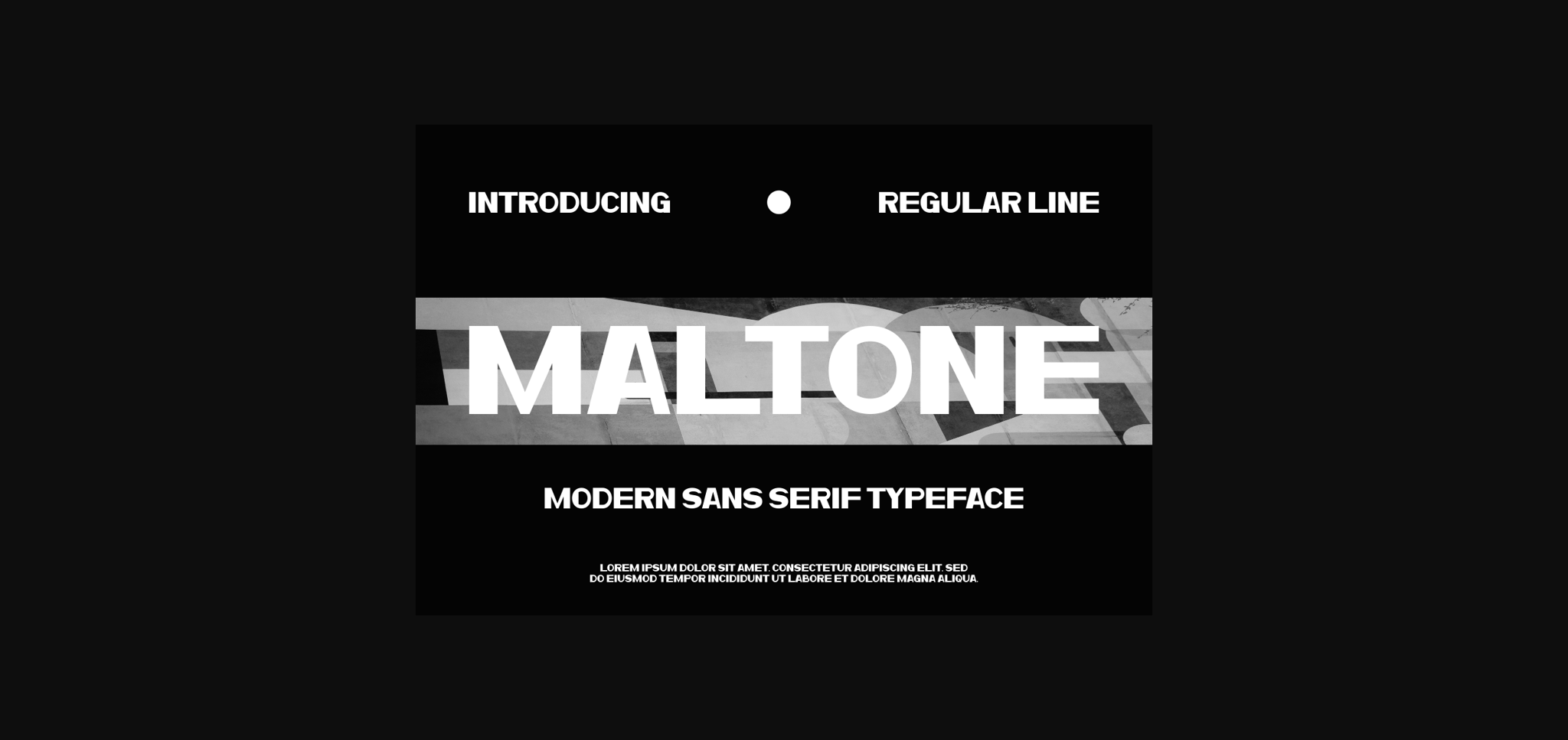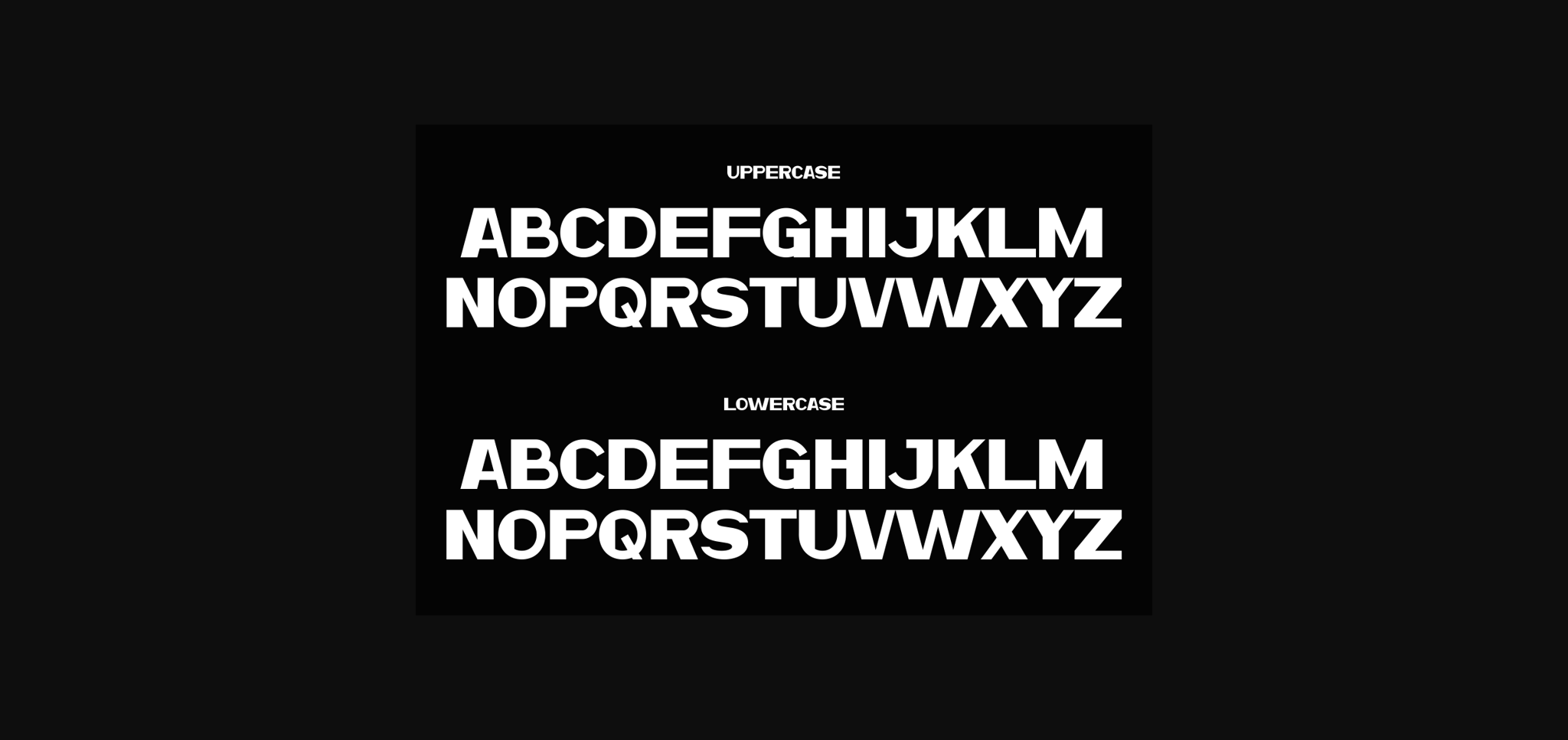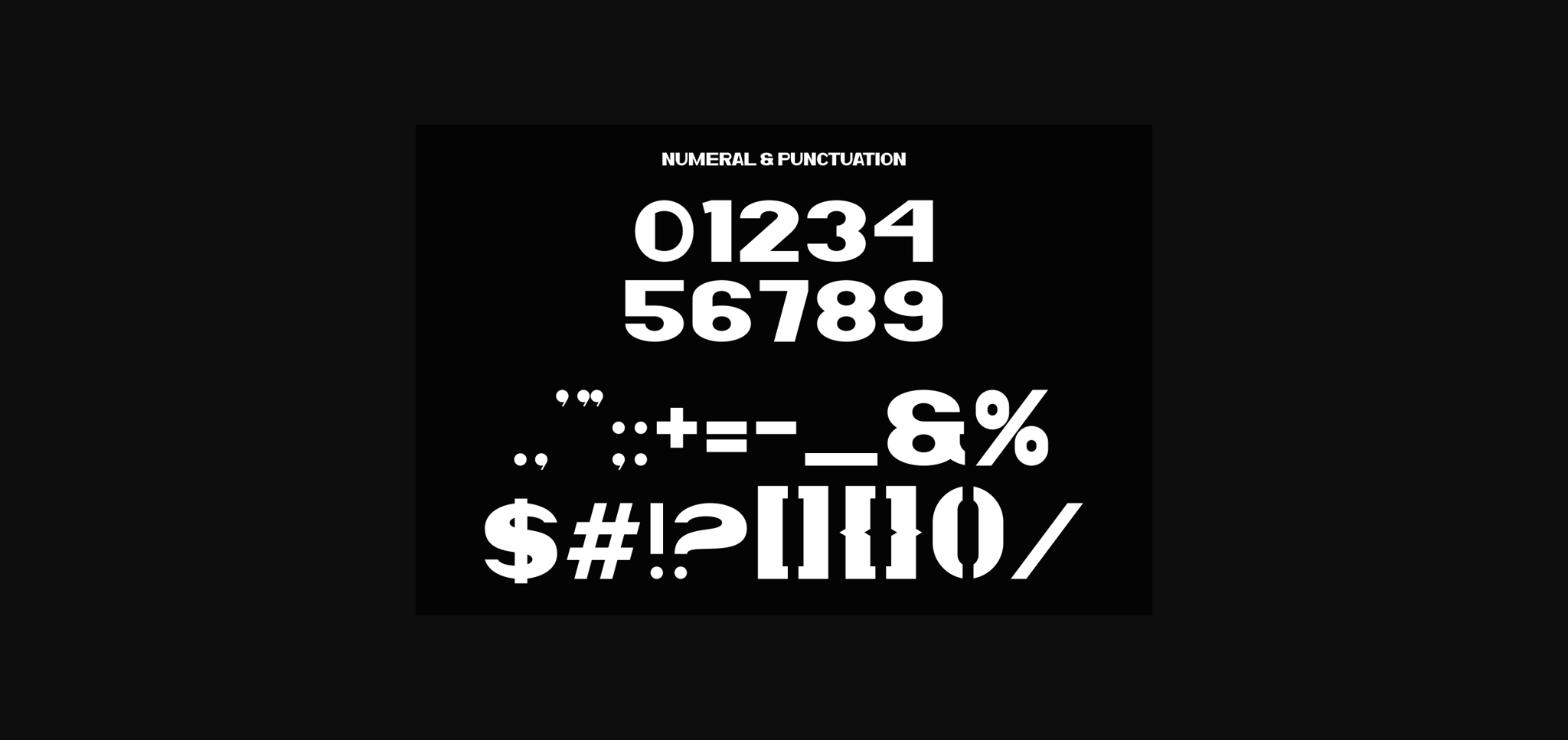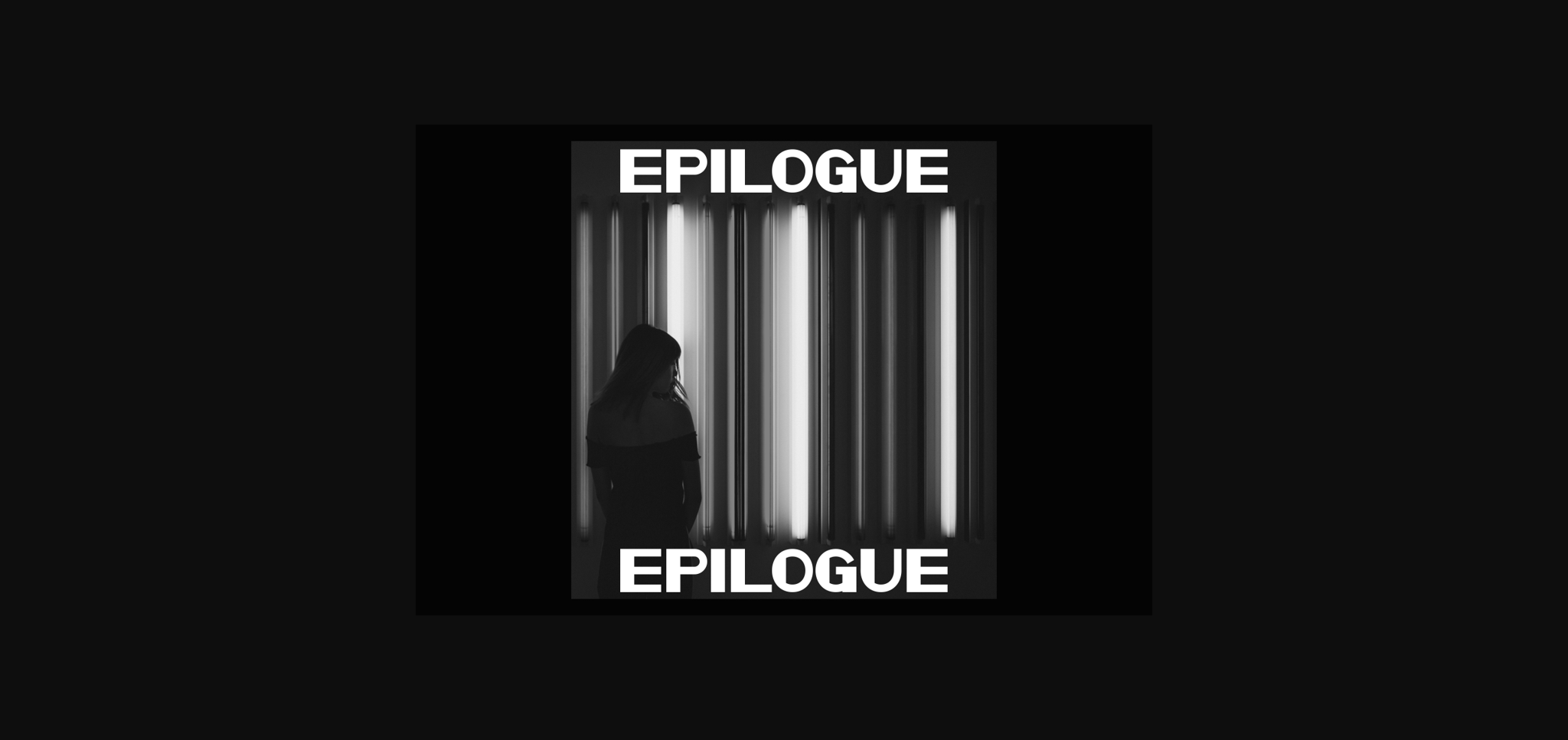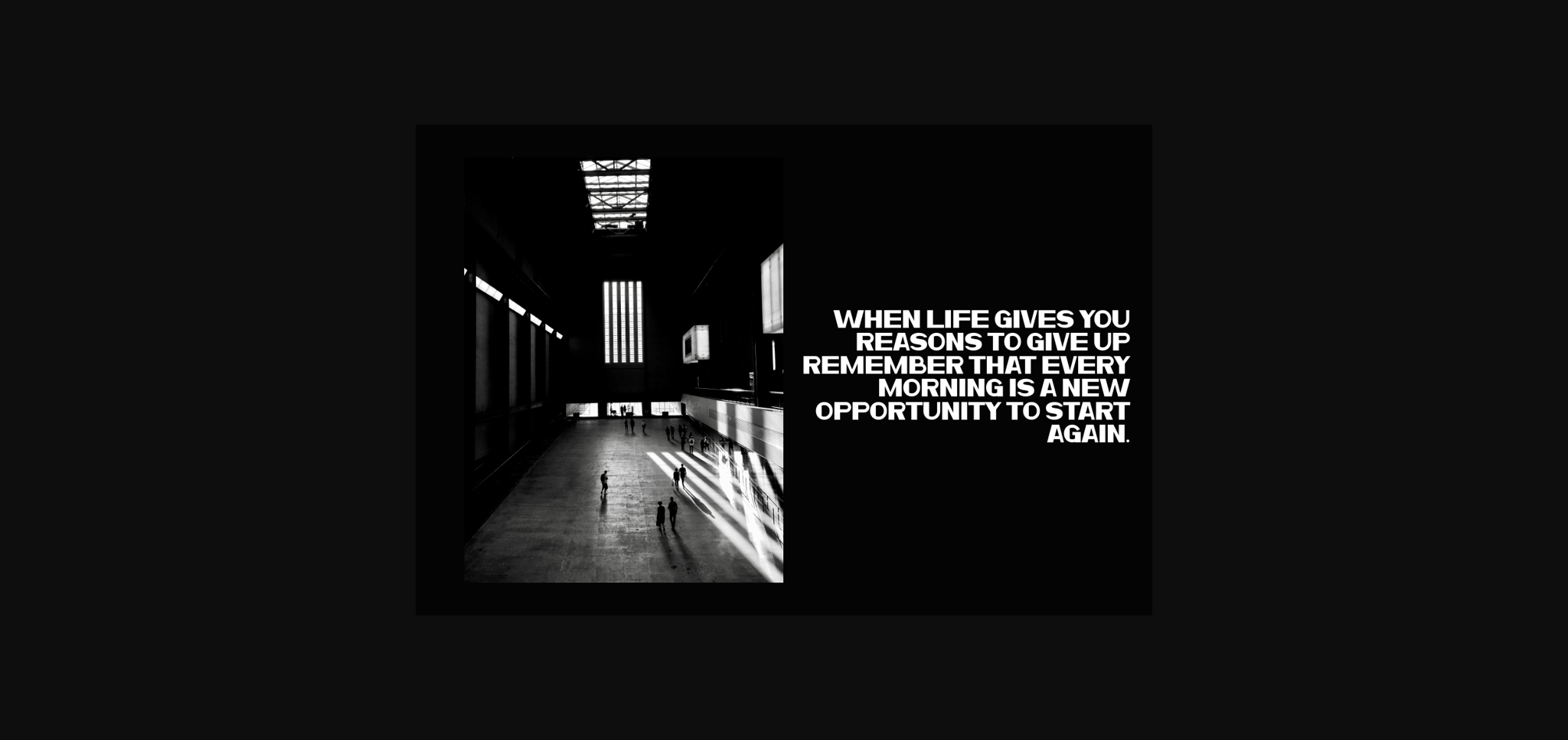
About Maltone Font
**MALTONE** is an authentic and unique modern sans serif font that is perfect for professional and product branding needs. This font is suitable for any branding project such as quotes, logos, blog headers, posters, ribbons, letters, invitations, stationery, etc… It is designed to be versatile and flexible and can be used on a variety of projects and mediums. extraordinary in a variety of contexts.